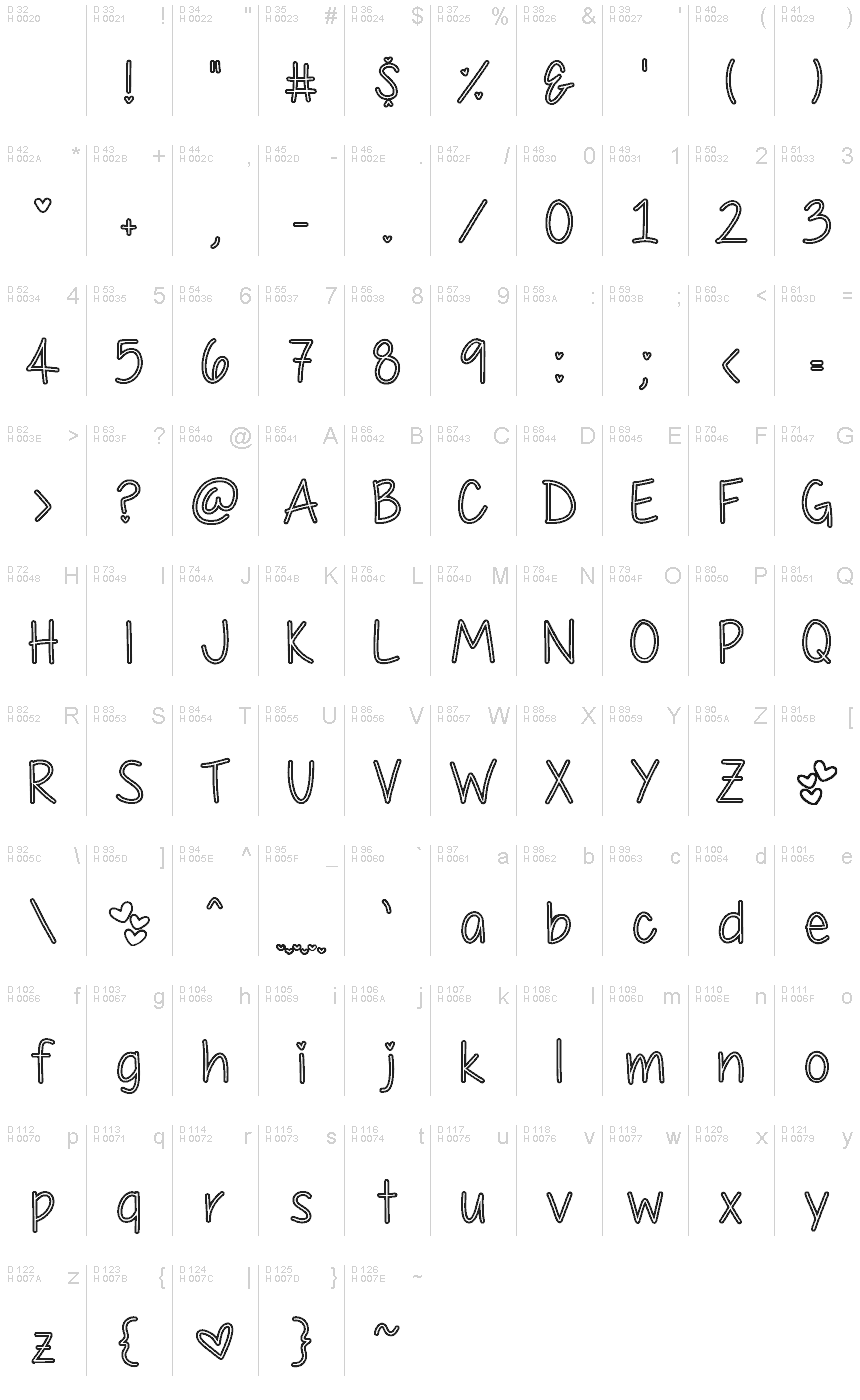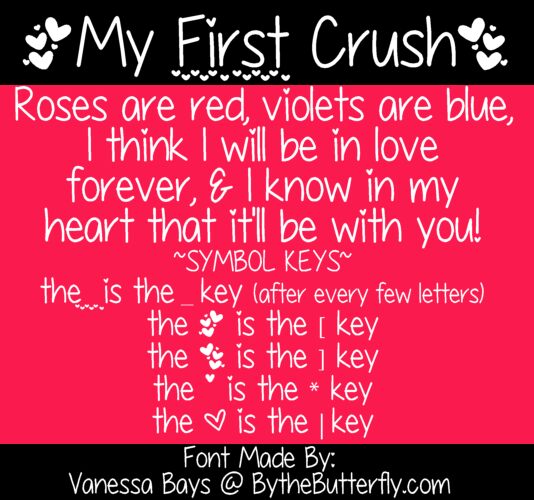
My First Crush
My First Crush is a captivating handwritten font designed by Vanessa Bays. With its whimsical, playful strokes and a touch of carefree charm, this font exudes a sense of youthful nostalgia. The organic flow of the letters and the slight variations in line thickness create an endearing, personal feel, reminiscent of a handwritten message from a cherished memory.
This font's versatility shines through, seamlessly transitioning between playful, romantic, and heartfelt applications. From greeting cards and invitations to branding and social media content, "My First Crush" can infuse a project with a genuine, endearing appeal that resonates with audiences of all ages.